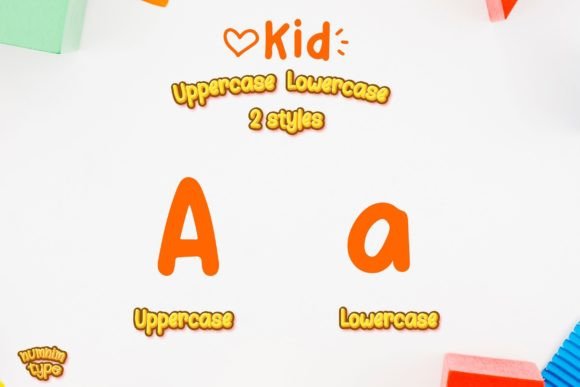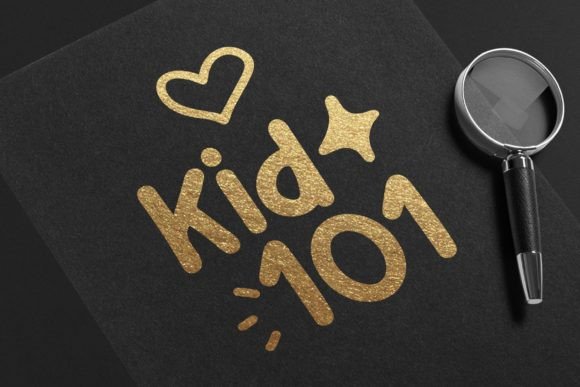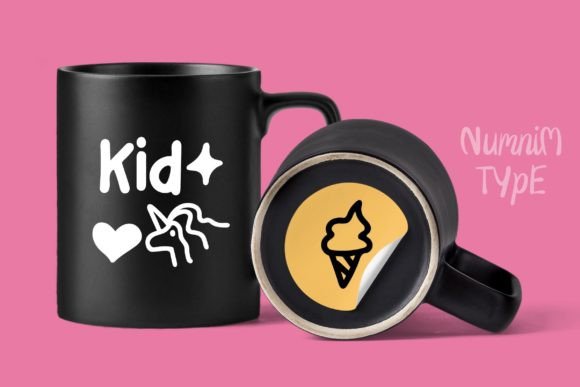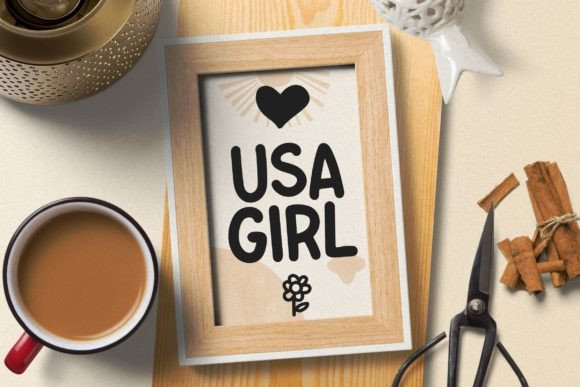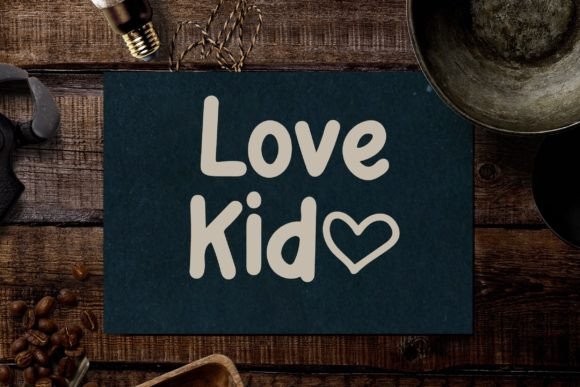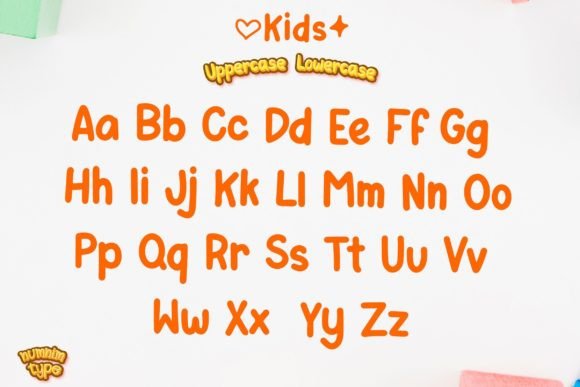
Introduction to Kid Font
Have you ever been working on a creative project and suddenly, you need a font that screams fun and playfulness? That’s when I reach for the trusty Kid Font – a cute and colorful handwritten font that brings a smile to my face every time.
I remember designing a logo for a children’s activity program and wanting a font that would reflect the energy and innocence of the kids. Kid Font was the perfect choice, and it instantly gave my design a sense of authenticity and playfulness. With its chunky lettered design, this font is a game-changer for any project that requires a high-quality, design resource.
Key Features of Kid Font
- High-quality design resource suitable for various creative projects, including illustrations, graphics, and logos.
- Designed with a child-friendly theme, perfect for educational materials, children’s books, and family-oriented projects.
Honest Review: Kid Font
As a designer, I’m always on the lookout for high-quality fonts to enhance my creative projects. Recently, I stumbled upon the Kid Font, and I must say, it’s been a game-changer for me.
What works well with Kid Font is its playful and modern aesthetic, making it perfect for child-related projects, educational materials, or even branding for kids’ products. The font is incredibly versatile and can be easily paired with other fonts to create a cohesive look. I love that it comes in a variety of styles, from bold and bright to soft and subtle, giving me endless possibilities for my designs.
- ✨ High-quality design: The Kid Font is crisp and clear, making it perfect for print or digital use.
⚠️ One limitation of Kid Font is that it may not be suitable for all types of projects, especially those that require a more formal or professional tone. Additionally, some users may find the font’s playful style too childish for certain applications.
Overall, I’m thoroughly impressed with Kid Font. It’s a fantastic design resource that has added a new level of creativity to my projects. If you’re a designer looking for a high-quality, free font with a playful twist, Kid Font is definitely worth checking out.
Kid Font
Kid Font is a free design resource that offers a high-quality, fun and playful font perfect for any creative project. With a transparent background, it’s easy to incorporate into your designs.
Tips for Getting the Most Out of Kid Font
For the best results, use Kid Font in bold or italic styles to add emphasis to your text. You can also combine it with other fonts to create a unique look.
Kid Font is perfect for children’s educational materials, such as worksheets or activity sheets. It’s also great for creative projects, such as party invitations or greeting cards.